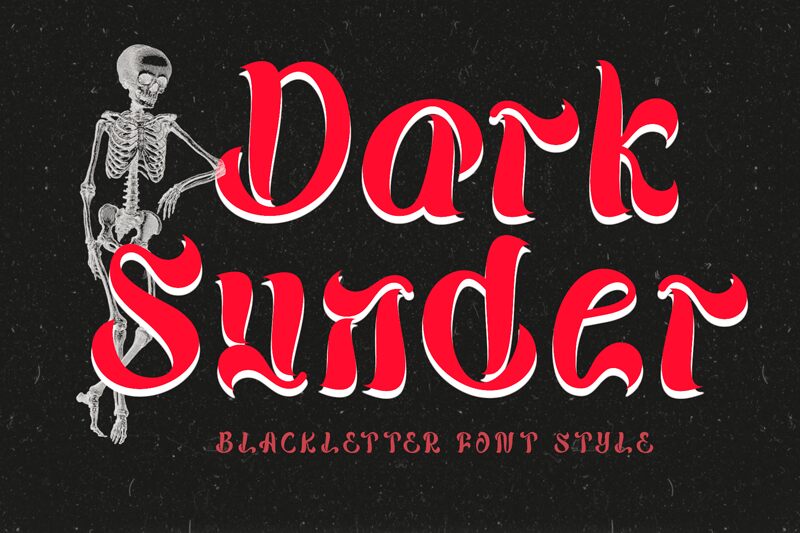
Dark Sunder font by Yoga Letter is a free Gothic font with dramatic and historical influences. Its regal and decorative style marks a bold presence with its distinctive and elegant details. It delivers a big impression with its intricate and detailed letter designs infused with a medieval touch.
The traditional charm of its Gothic elements gives the font a majestic style that fits in perfectly for horror, fantasy, mystery, or thriller book cover designs. Other possible uses include movie posters, video game thumbnails, medieval tournament branding, etc. Explore logos and apparel branding ideas, along with other print and digital media applications.